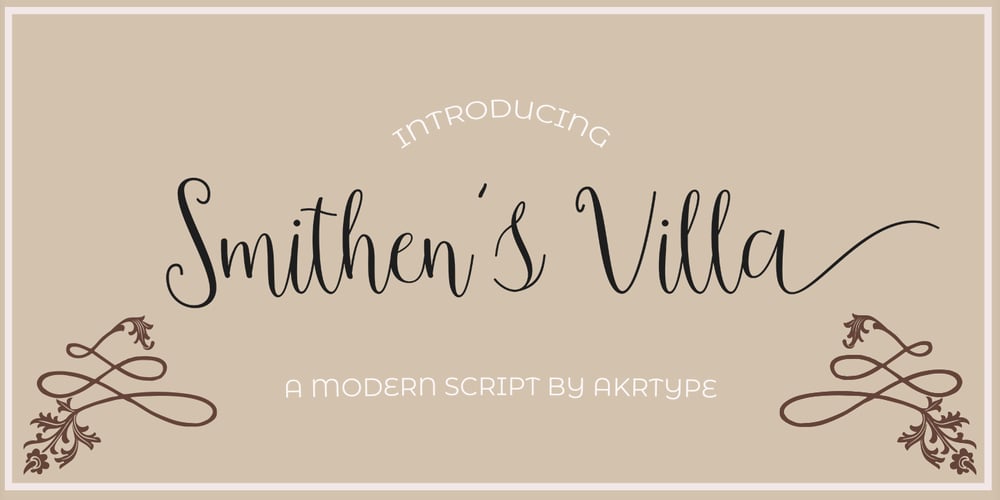
Smithens Villa script
Smithens Villa script font
Smithens Villa script Font Family was designed by Ak Mal and published by Akrtype Studio. Smithens Villa script contains 2 styles and family package options. So I made Smithens Villa Script, sort of classic decorative with a modern twist. It is a display font meant for vintage logos, fashion labels, custom cards headers, badges, food packaging designs, as there are a lot of fancy letter connections. Also I offer a decent amount of stylistic alternatives for many letters. Smithens Villa Script contains standard characters, lowercase, uppercase, numbers, punctuation,stylistic style and international characters.